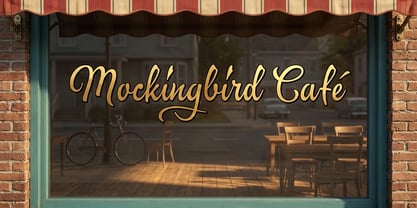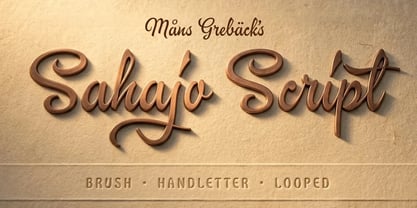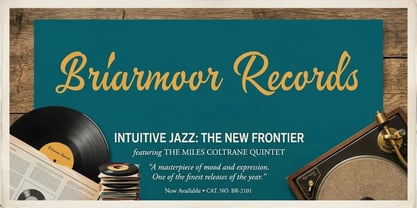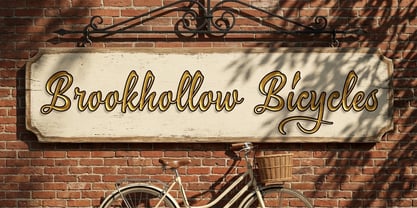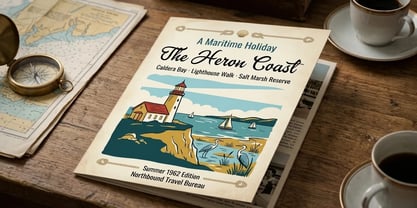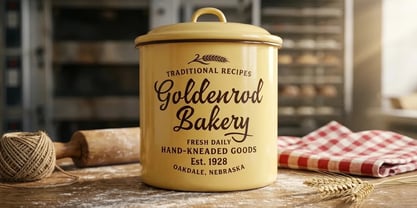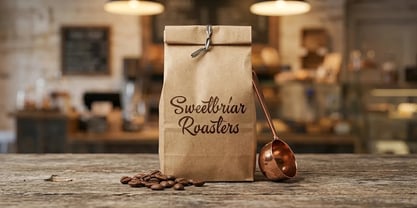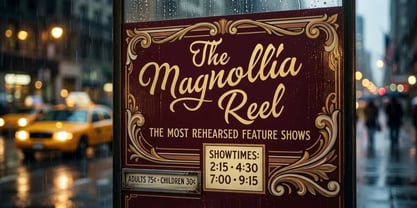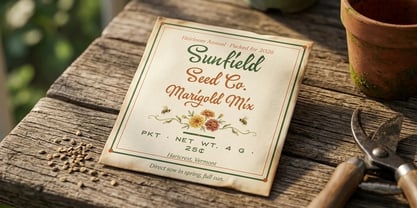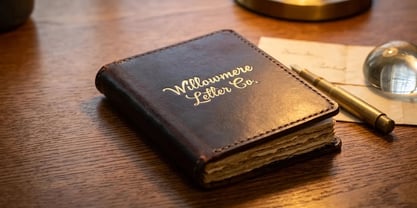
Sahajo Script
by Mans Greback
The Sahajo Script Font Family was designed by Måns Grebäck and published by Mans Greback. Sahajo Script contains 4 styles and family package options. More about this family
Sahajo Script is a warm casual brush script with a gentle 10° slant.
The capitals loop with a generous swing, the lowercase stays almost upright with friendly mid-weight strokes, and terminals trail off like a felt-tip pen lifting a beat too early. The letterforms feel hand-lettered rather than scripted — closer to a confident handwritten note than to studio brushwork.
You can picture it across the brim of a county fair ribbon, or running along the back of a holiday-camp postcard mailed in late August 1962.
The font is built with advanced functionality and guaranteed top-notch quality, containing stylistic and contextual alternates, ligatures and more automatic and manual features; all to give you full control and customizability.
It has extensive lingual support, covering all Latin-based languages, from North Europa to South Africa, from America to South-East Asia. It contains all characters and symbols you'll ever need, including all punctuation and numbers.
Designed and created by Mans Greback.
Designers: Måns Grebäck
Foundry: Mans Greback